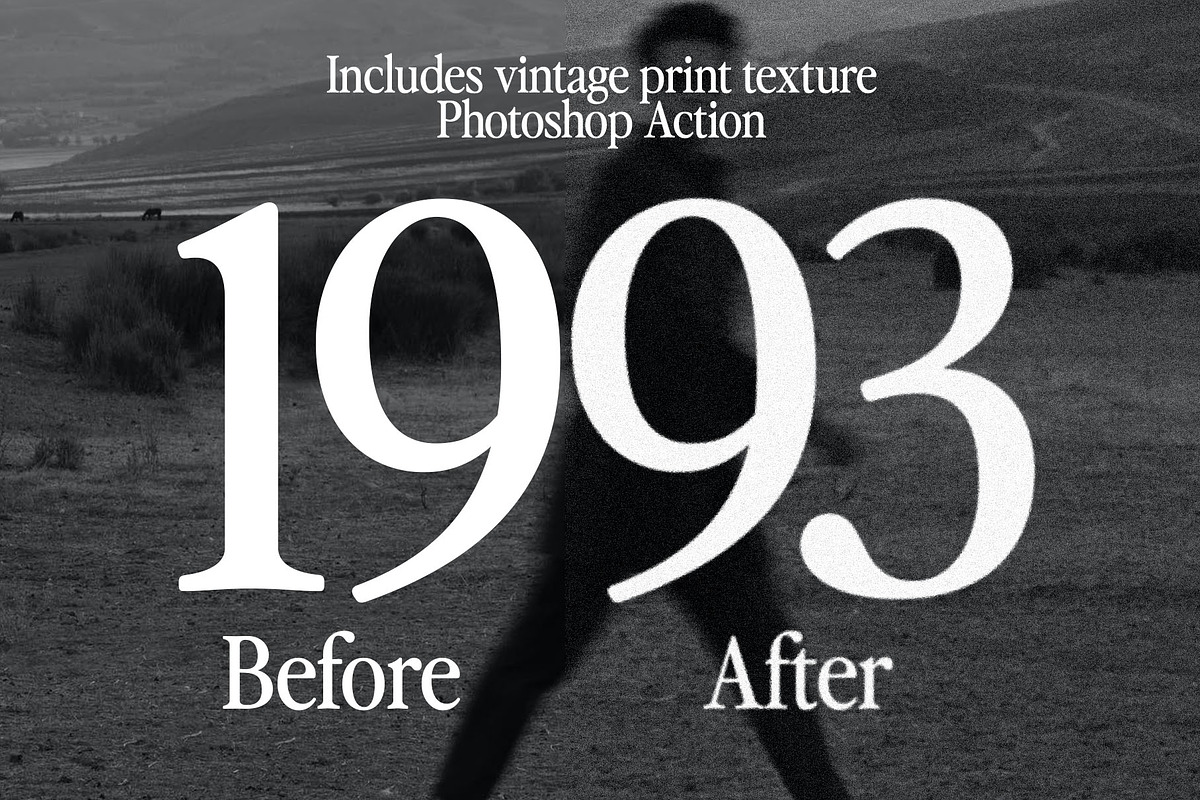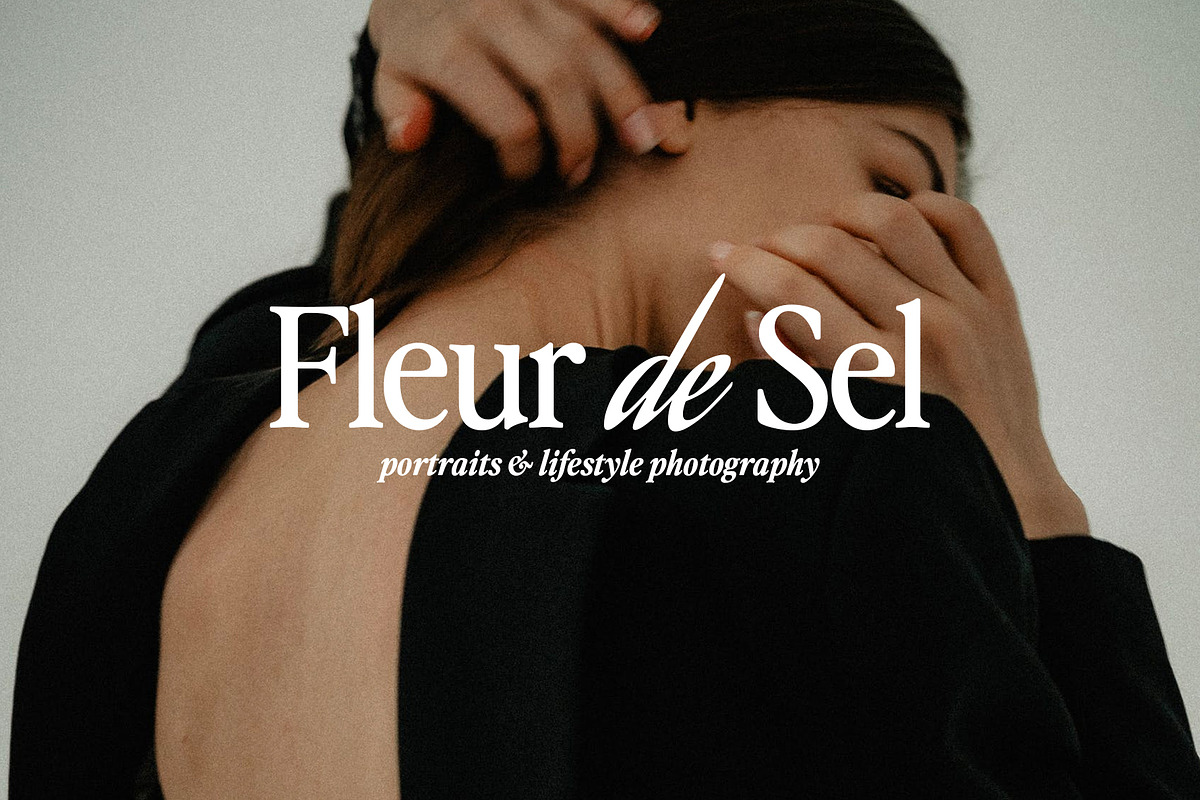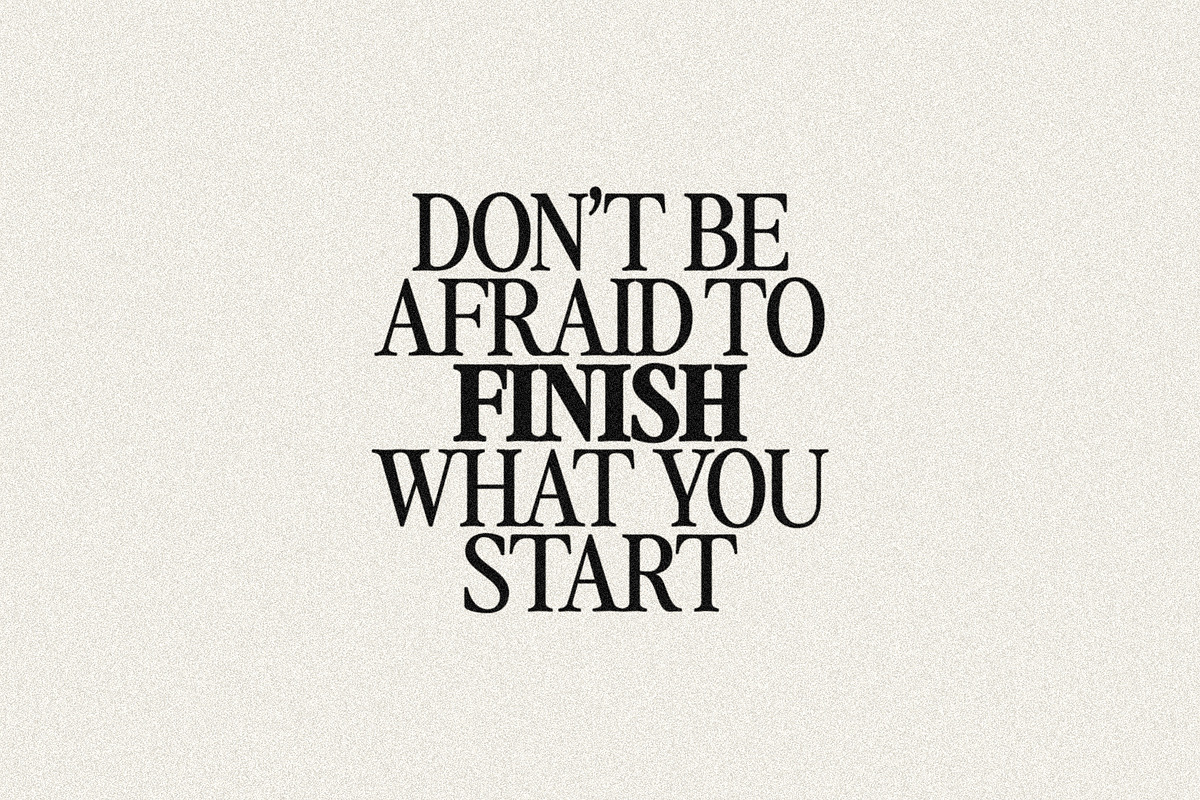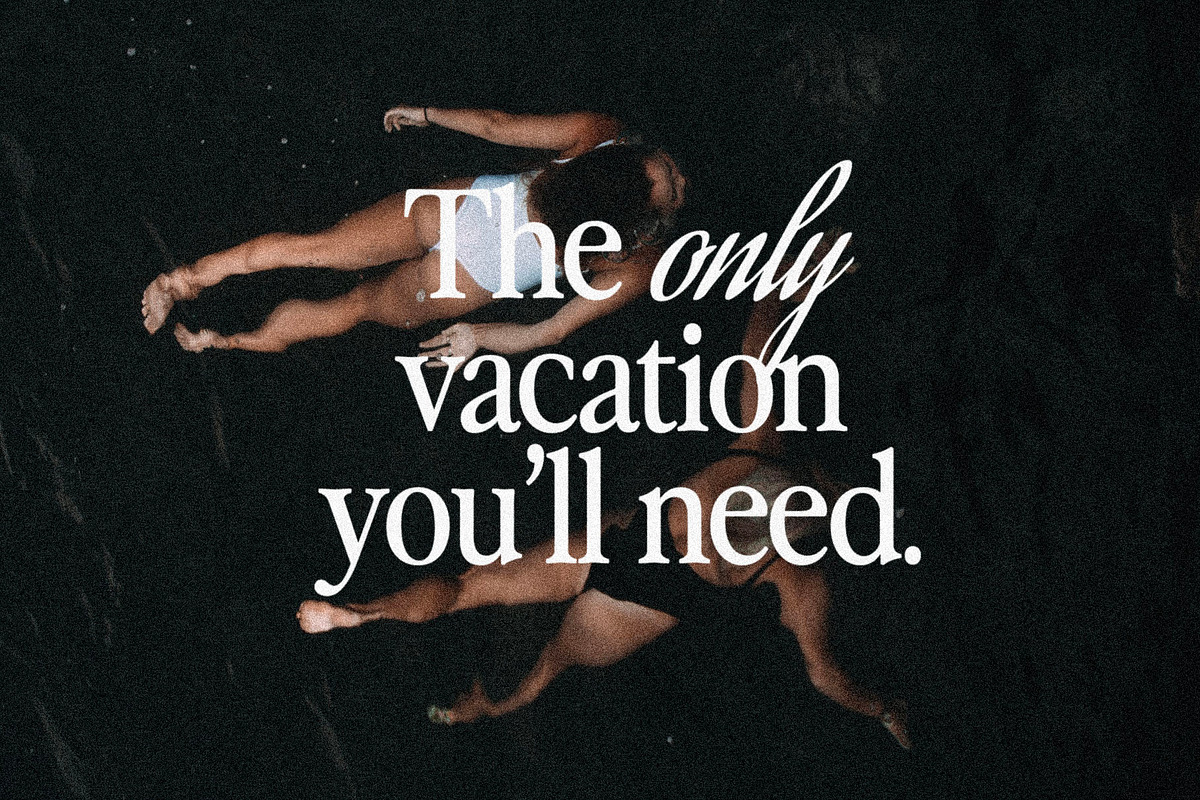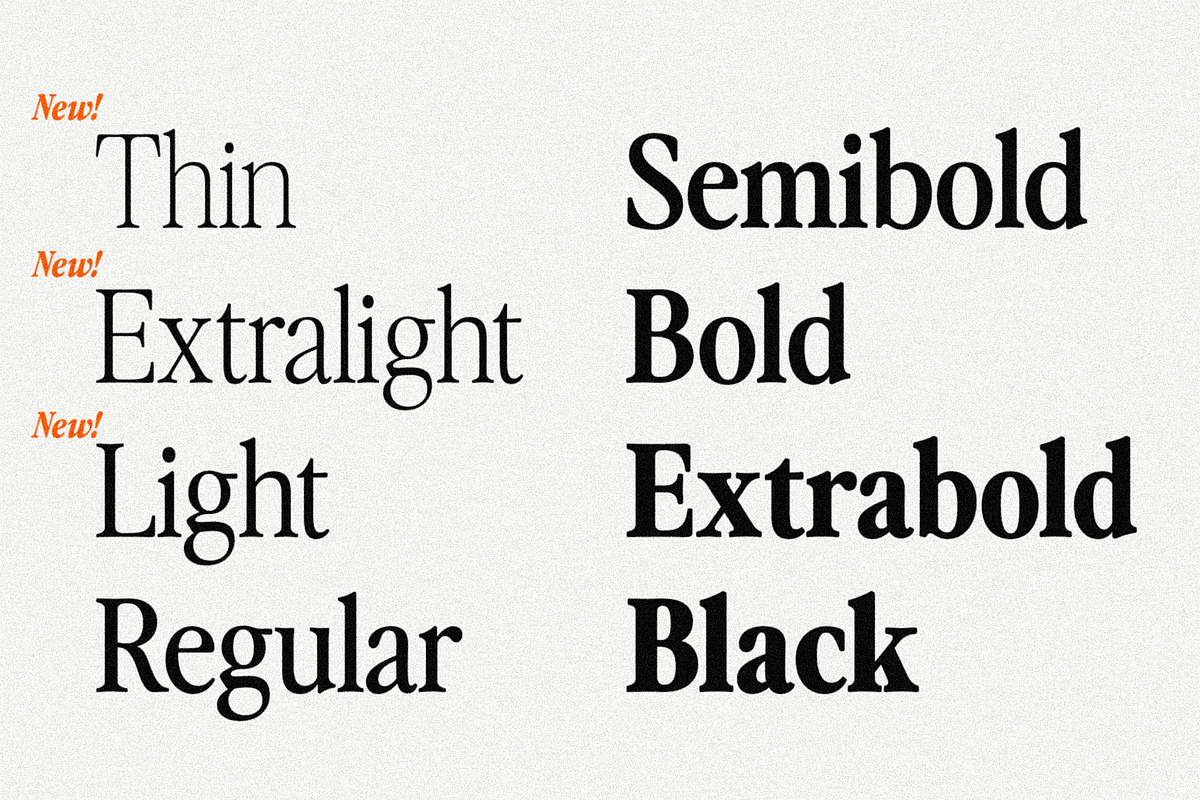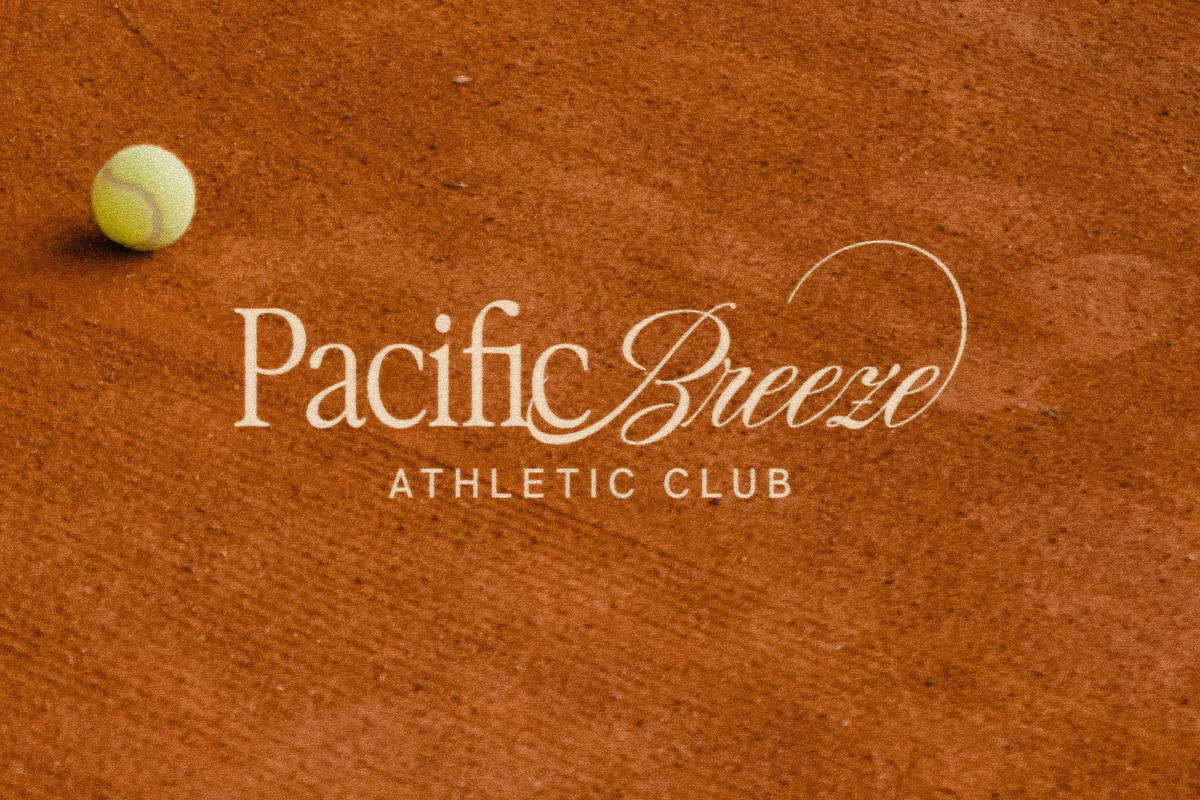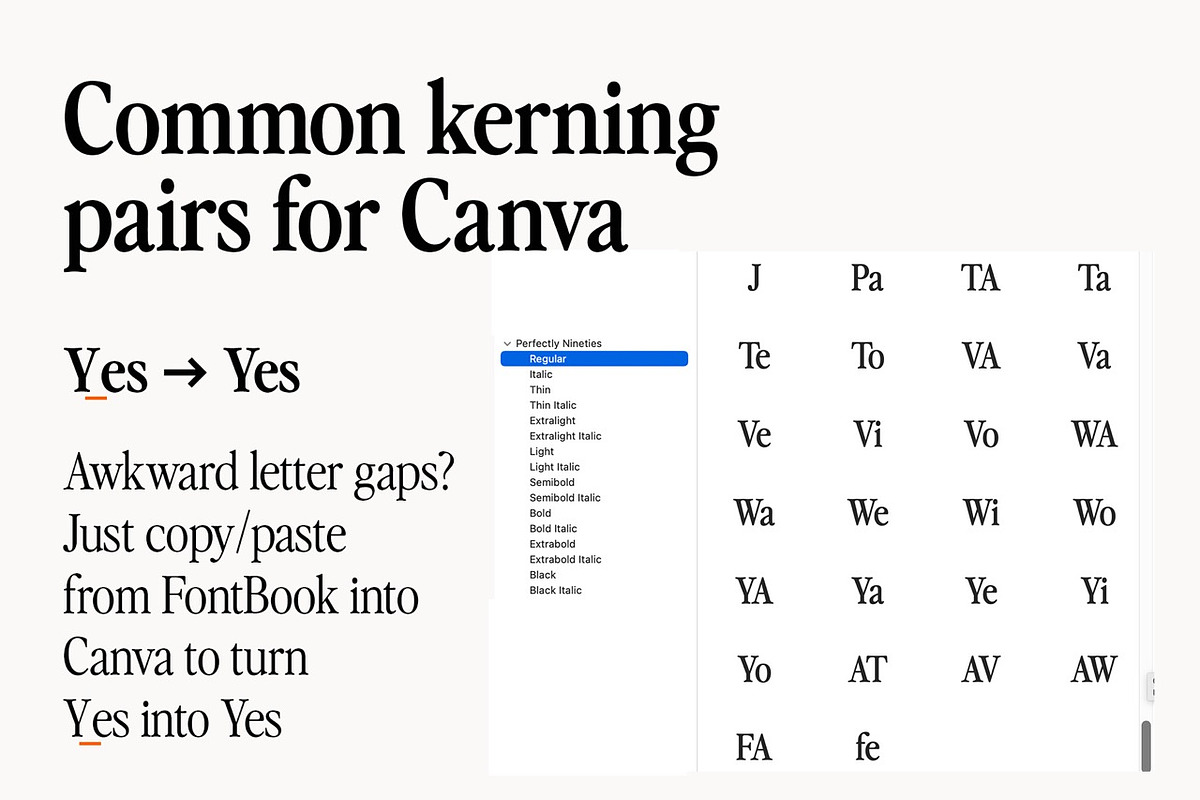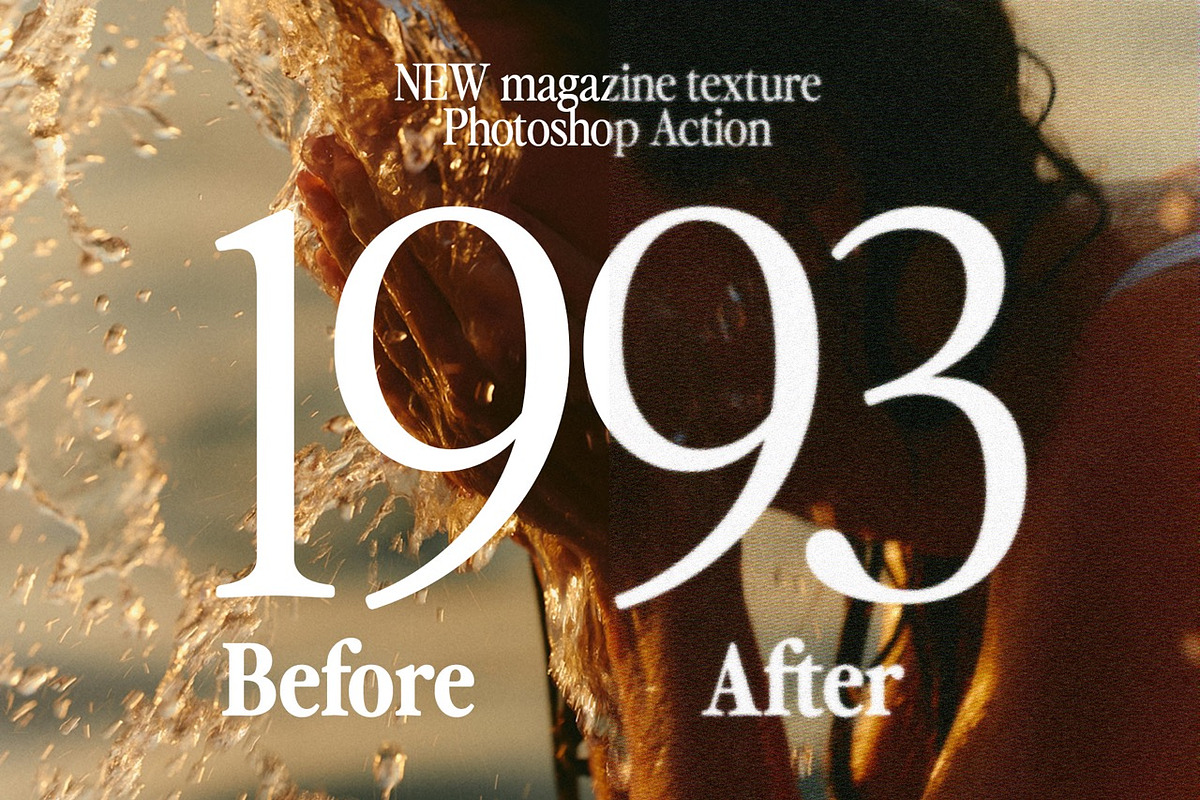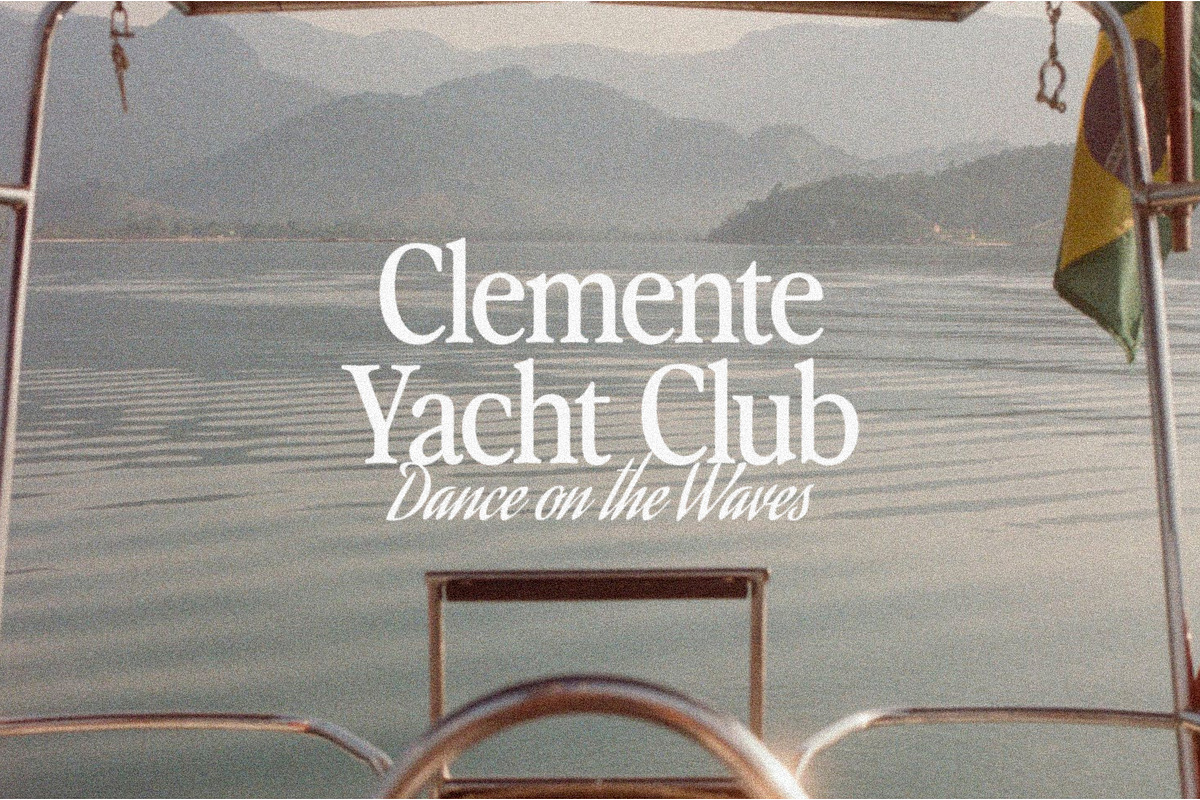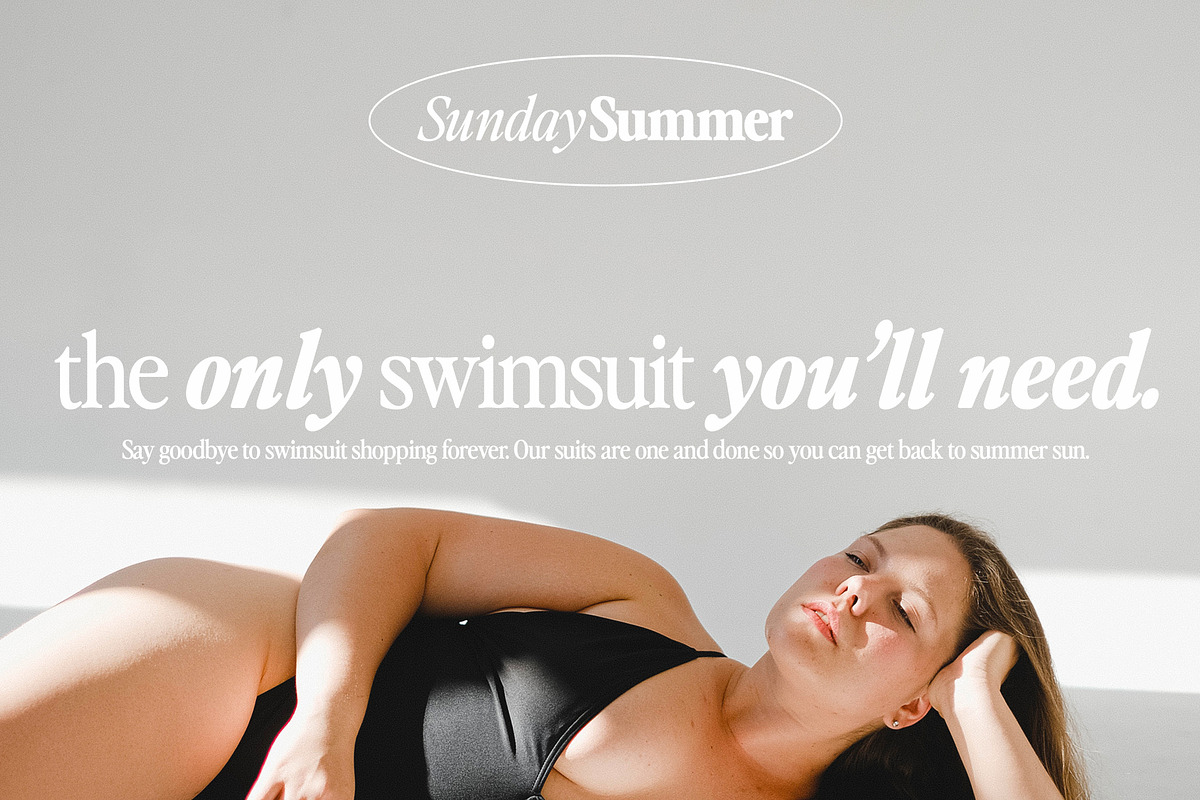
Perfectly Nineties 16-Font Family
Say hello to the Perfectly Nineties FAMILY – an expansion on Perfectly Nineties that includes 16 fonts, regular and italic, from Thin weight to Black, and still has all the nostalgic vibes!
I've started seeing classic, tightly spaced serifs of the 80s & 90s making a comeback, and wanted to create the perfect one for you too!
Perfectly Nineties is a beautifully nostalgic 16-font typeface that looks incredible in both large and small settings as a display and body text.
I've been loving combining the regular and italic, whether all in one word (like in the Missfits samples) or in body text!
You'll also get four Photoshop Actions as a bonus that create a vintage magazine print look with the click of a button (see the before/after on the 7th image, 1993) :)
One thing to note about Perfectly Nineties is the letter spacing. It was intentionally spaced for clean reading if you wanted to use it for body type, so I recommend setting the spacing a little tighter for display use (around -10 to -20 should do!).
- Perfectly Nineties Thin, Extralight, Light, Regular, Semibold, Bold, Extrabold, & Black (uppercase & lowercase)
- Perfectly Nineties Italic in Thin, Extralight, Light, Regular, Semibold, Bold, Extrabold, & Black (uppercase & lowercase)